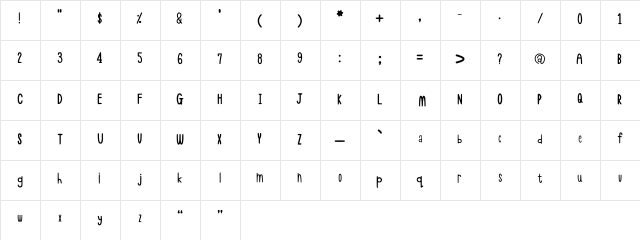
hello giraffe! Medium
Design Context for hello giraffe! Typeface
hello giraffe! offers clean, dependable letterforms without strong stylistic allegiance, making it a practical choice for designers who need flexibility.